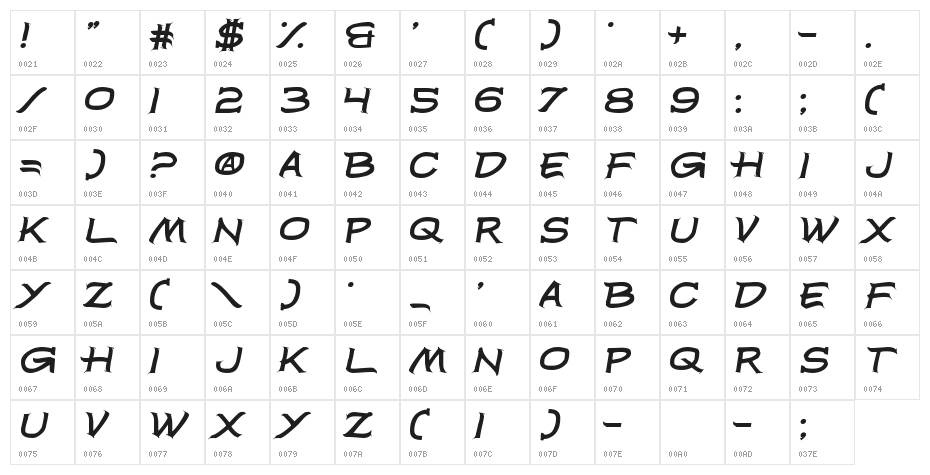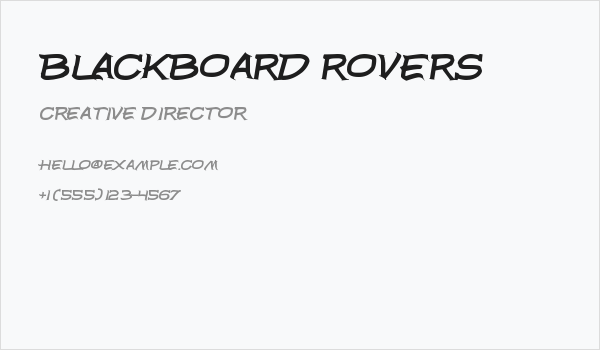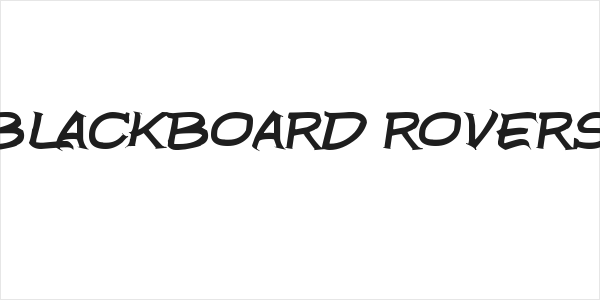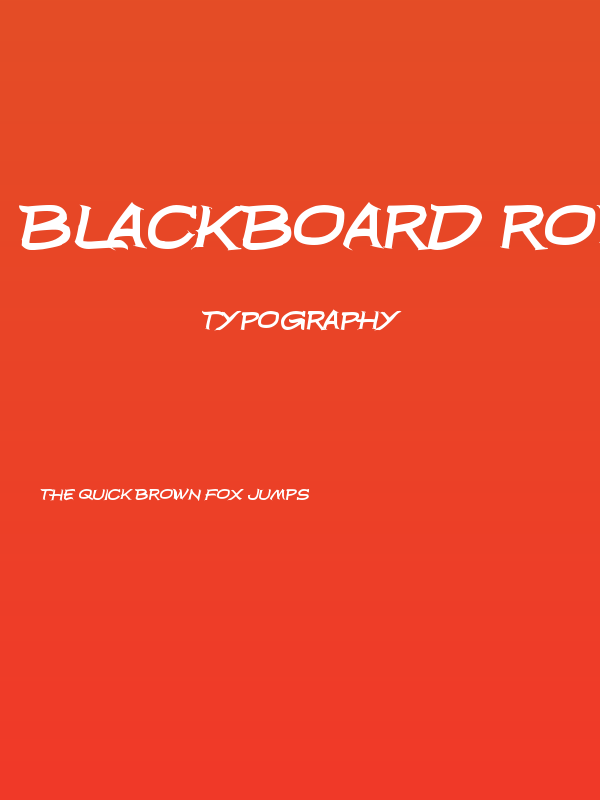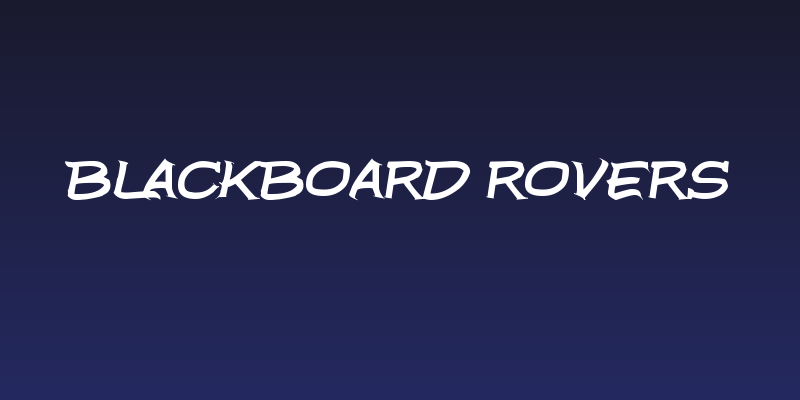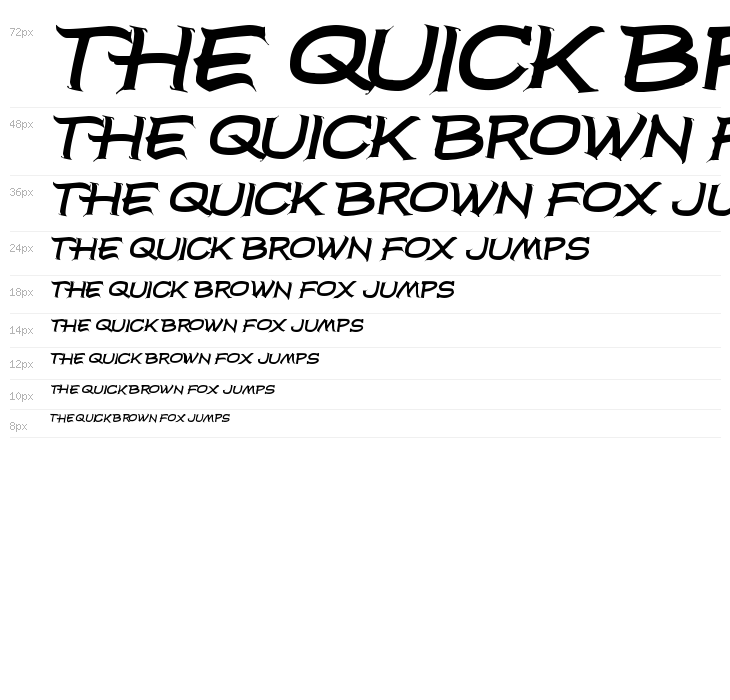
Blackboard Rovers Font
Blackboard Rovers Description
This font features a bold and dynamic style with a handwritten flair, characterized by its slanted, brush-like strokes. The uppercase and lowercase letters maintain a consistent flow, giving a sense of movement and energy. The numbers and special characters are crafted with the same artistic touch, ensuring uniformity across all elements. The font's design is reminiscent of chalkboard writing, making it both playful and expressive. Its unique style is suitable for projects that require a personal and informal touch, while still maintaining readability.
| Proposed Projects | Ideal for creative projects such as posters, invitations, and branding that require a personal and artistic touch. |